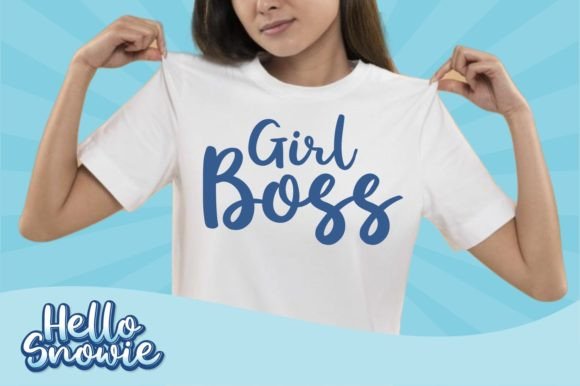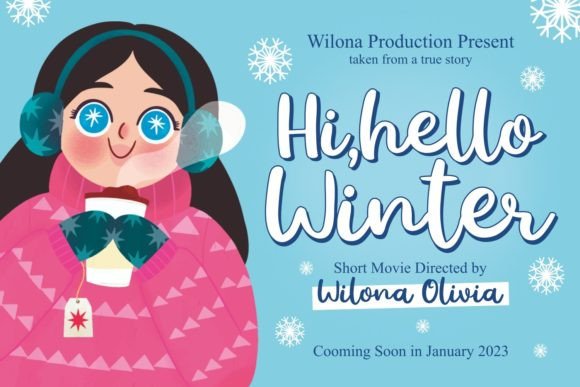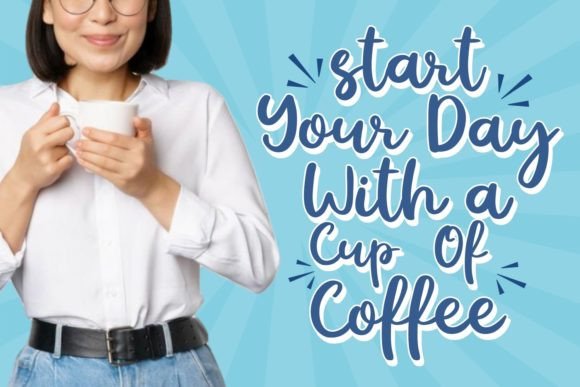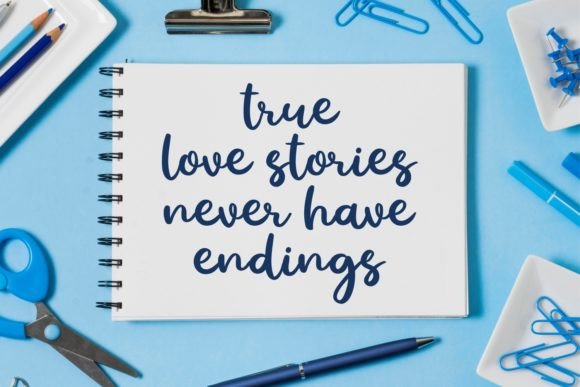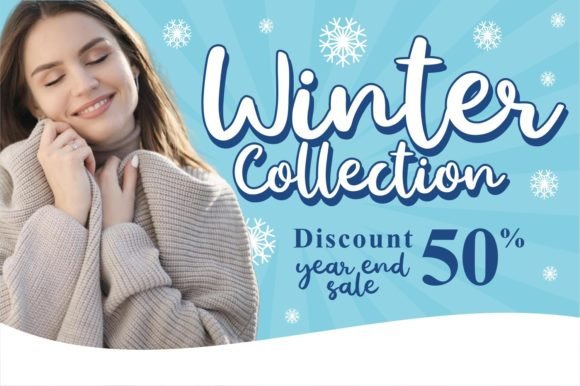
About Hello Snowie Font
Hello Snowie Font is a beautifully flowing handwritten typeface that adds a whimsical charm to any project. Designed to feel warm, cozy, and effortlessly playful, itβs the perfect font to bring a magical touch to your creative work. Whether you’re designing for the holidays or just looking to add a hand-crafted feel, Hello Snowie offers the perfect blend of elegance and whimsy.
A Cozy & Handcrafted Style
Hello Snowie mimics natural handwriting with gentle curves and fluid strokes. Itβs ideal for projects that require a personal, homey touch. Think of winter greeting cards, handwritten quotes, cozy mugs, gift tags, scrapbook pages, or seasonal branding. This font exudes friendliness and warmth, making it highly engaging and visually charming.
Versatile Usage Across All Seasons
While it shines brightest in cold-weather themes, Hello Snowie isnβt limited to winter use. It works equally well for weddings, baby showers, product packaging, DIY crafts, and social media posts. Itβs also perfect for small business owners who want their branding to feel approachable and authentic.
Creative Features
Handwritten Style: Soft, flowing, and natural letterforms give your text a genuine, handmade appearance.
Multilingual Support: Includes characters to support a range of Latin-based languages.
High Legibility: Despite its decorative feel, the font remains highly readable even at smaller sizes.
Perfect For:
Winter holiday designs
Cozy home dΓ©cor projects
Greeting cards and invitations
Childrenβs book covers
Feminine branding
Social media content
Product labels and packaging
Why Choose Hello Snowie Font?
If you’re searching for a font that captures the magic of handwritten notes and the joy of seasonal creativity, Hello Snowie is a fantastic choice. It brings personality to your designs without sacrificing readability or elegance. Whether you’re a designer, crafter, blogger, or business owner, Hello Snowie will become your favorite go-to handwritten script.
Let Hello Snowie Font elevate your design game with its blend of charm, personality, and elegance. Itβs more than just a fontβitβs a warm invitation to connect emotionally with your audience. Add it to your collection and bring your creative ideas to life with a touch of handwritten magic.